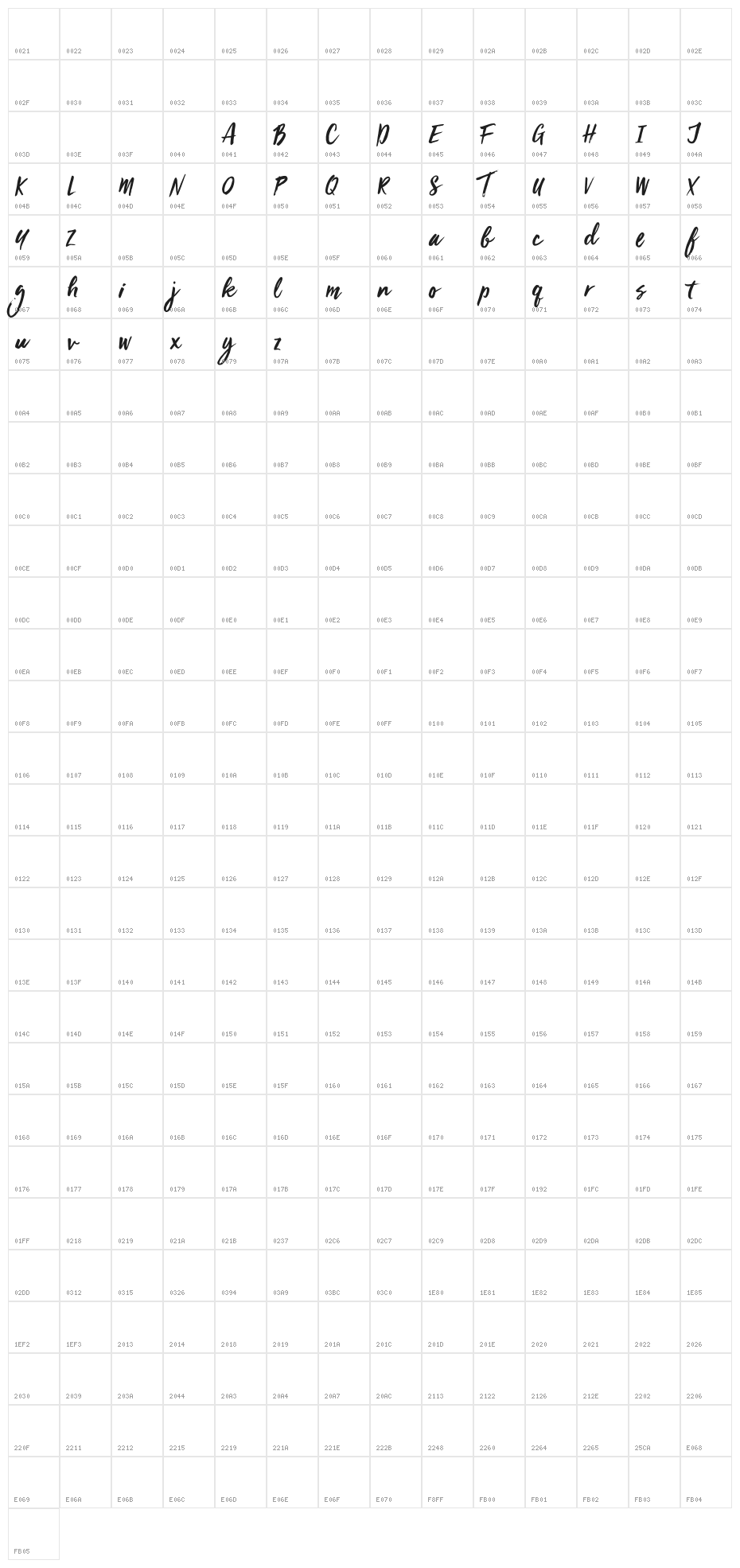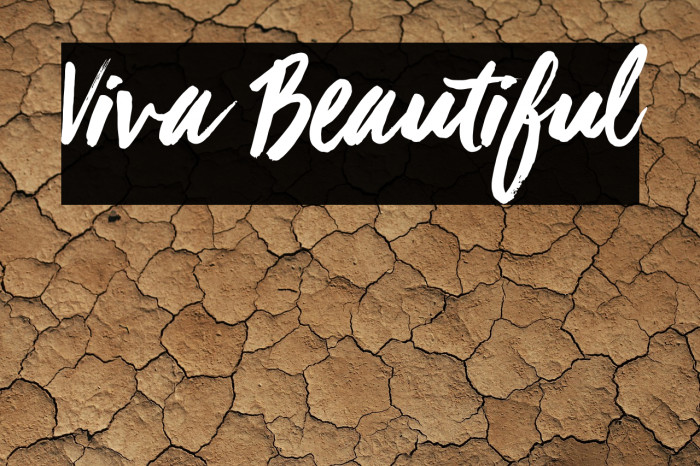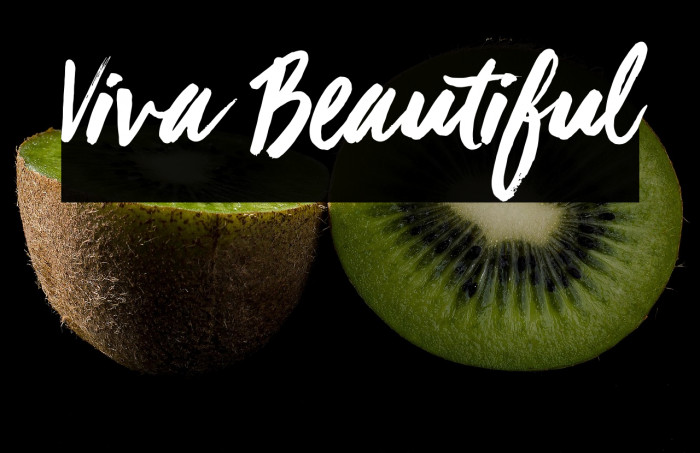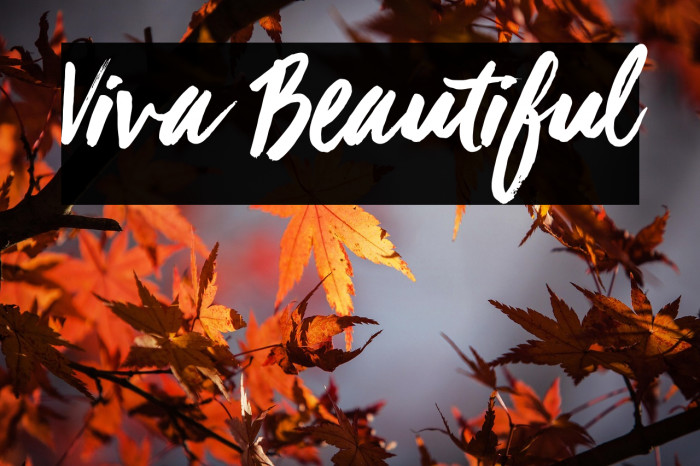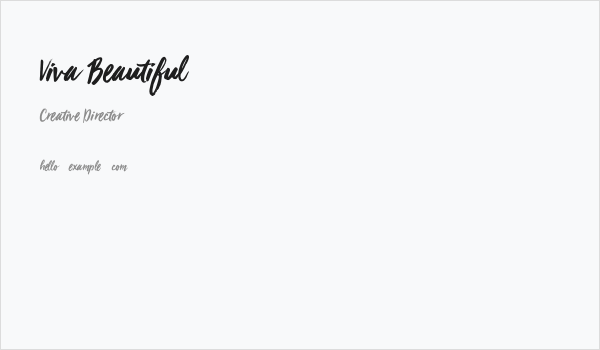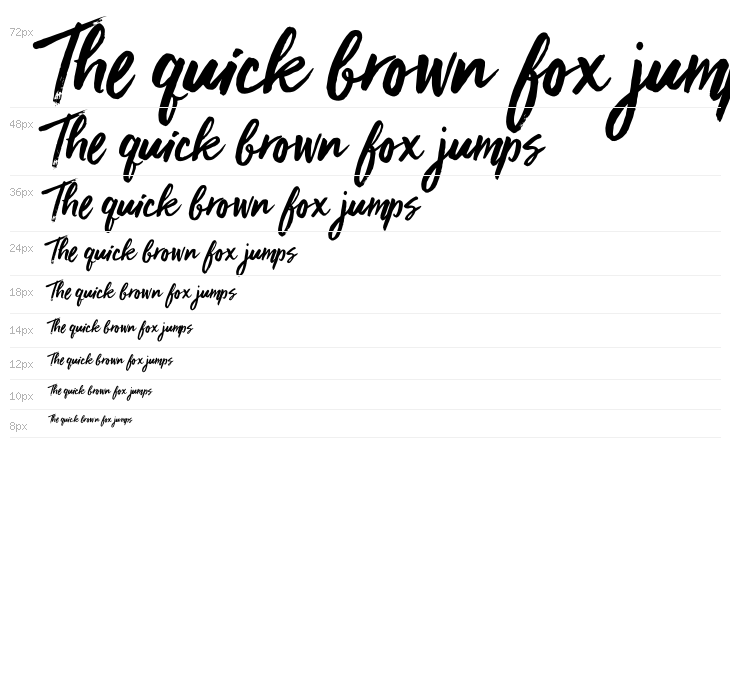
Viva Beautiful Font
Viva Beautiful Description
This font exudes a dynamic and energetic vibe, characterized by its bold, brush-like strokes that mimic the fluidity of hand-painted lettering. The uppercase and lowercase letters are crafted with a sense of motion, giving each character a unique personality. The strokes vary in thickness, adding a sense of depth and texture, while the slightly irregular edges contribute to its handcrafted appearance. This font is perfect for projects that require a personal touch, such as invitations, posters, and branding materials. Its artistic flair makes it stand out, capturing attention with its expressive style.
| Proposed Projects | Ideal for invitations, posters, branding, and any project needing an artistic touch. |